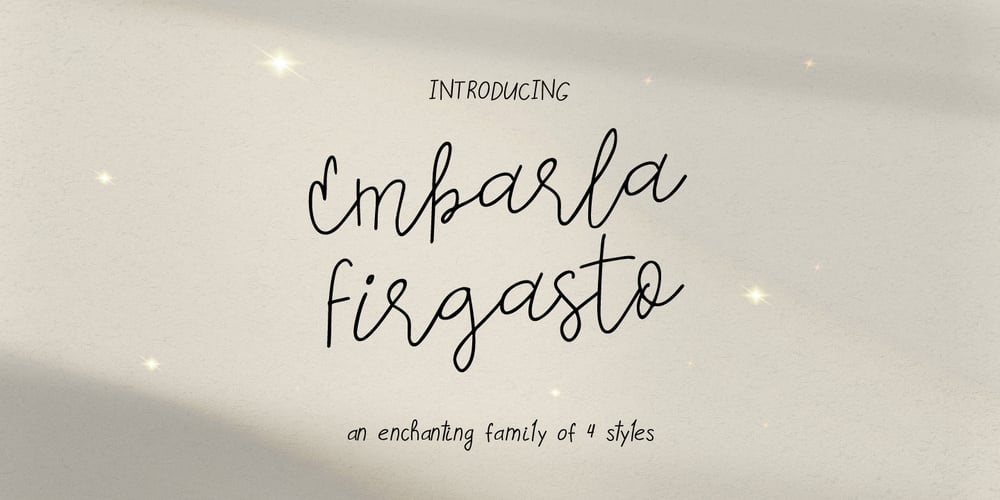
Embarla Firgasto
Embarla Firgasto font
Embarla Firgasto Font Family was designed by Hleb Zhyhunou and published by Mr. Typeman. Embarla Firgasto contains 4 styles and family package options. Take a look at Embarla Firgasto – my new enchanting family of four styles. They pair beautifully together in all kinds of applications.Embarla Firgasto comes with uppercase, lowercase, standard punctuation and special letters for most of the European languages.